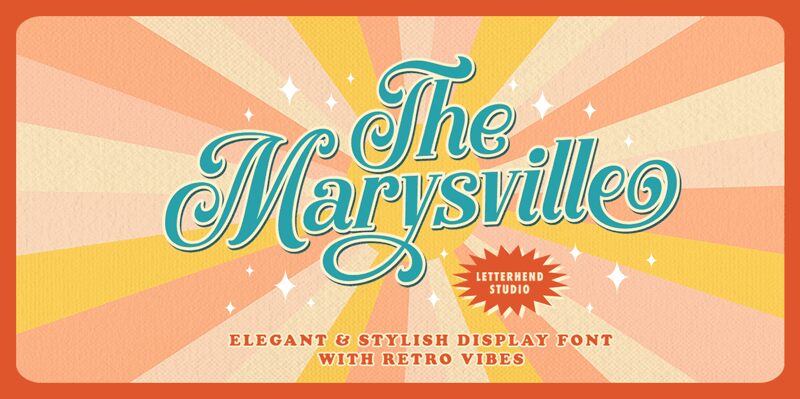
Marysville, designed by Letterhend Studio, encapsulates the elegance of calligraphy with a modern twist. Its semi-light weight lends a delicate touch to each letterform, creating an aesthetic that is both refined and approachable. The sweeping curves and fine lines of Marysville evoke traditional calligraphic practices while maintaining readability for contemporary applications.
The font's versatility shines in various creative contexts, from wedding invitations to branding materials, where its stylistic nuances can add a personalized charm. Its distinct character makes it particularly suited for projects that require a touch of sophistication without sacrificing the warmth and familiarity that calligraphy brings.
Marysville's allure lies in its balance of classic artistry and modern design sensibilities, making it an excellent choice for designers seeking to infuse their work with subtle grace and timeless appeal.